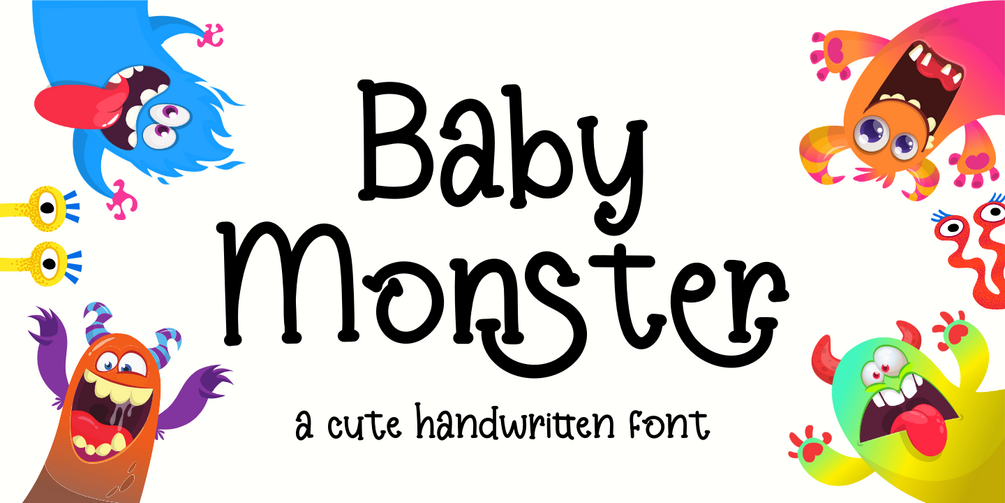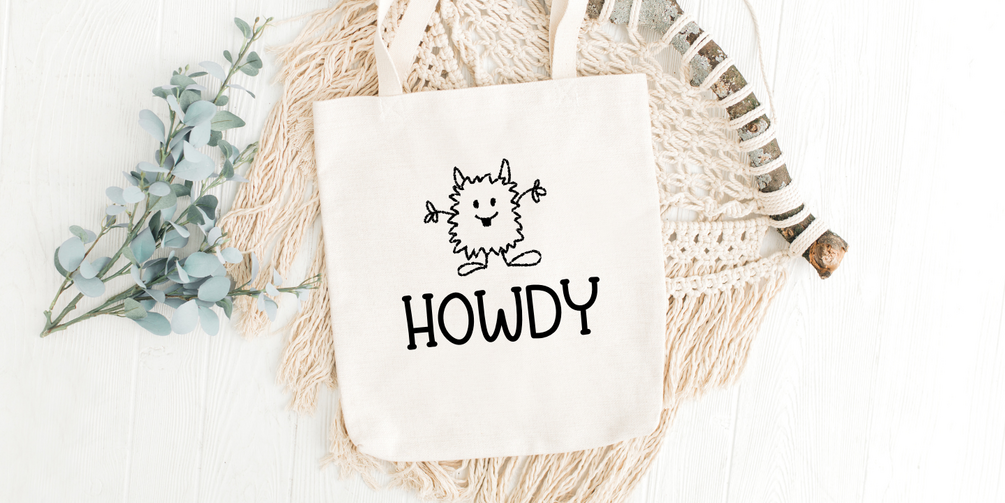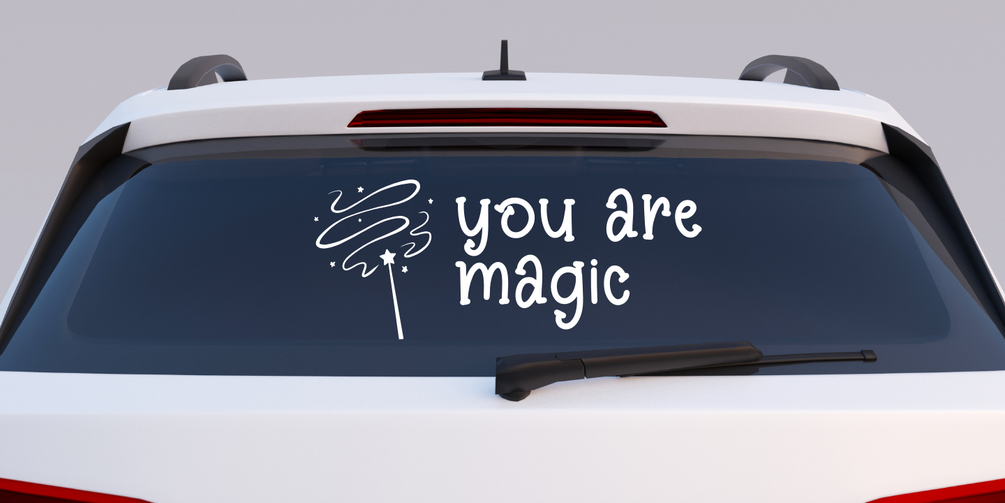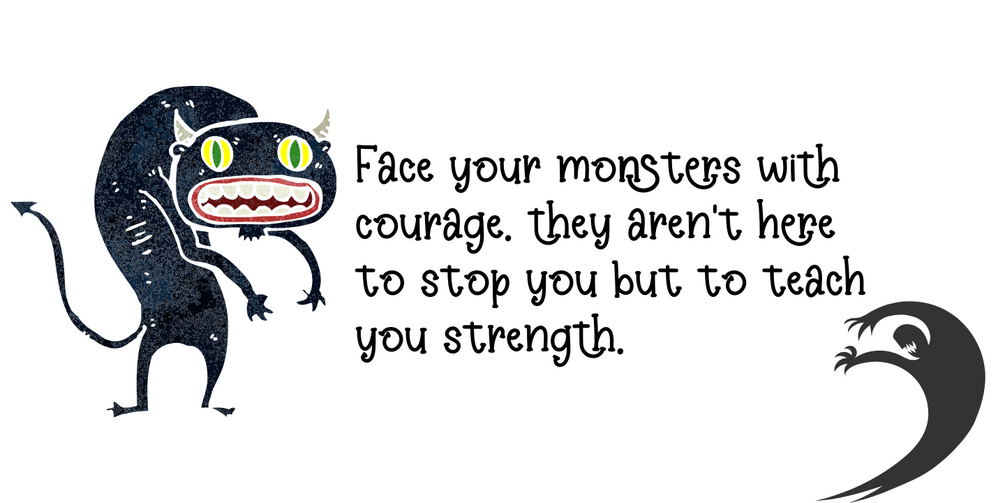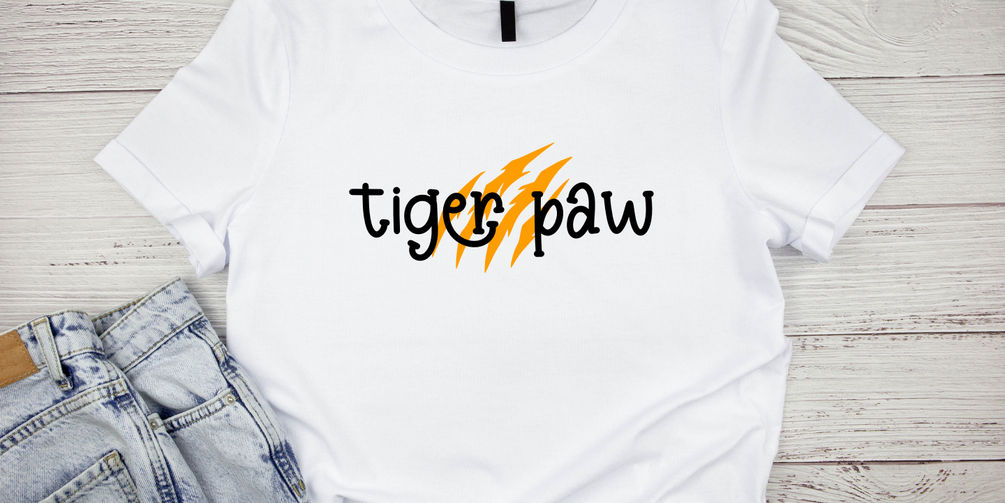
Baby Monster
Baby Monster is a cool and stylish handwritten font with a unique and modern aesthetic. Its contemporary charm is perfect for adding a personal touch to your creative projects. Designed with flair, Baby Monster brings elegance and character, making it ideal for a wide range of designs.
Perfect for logos, book or movie titles, fashion brands, magazines, clothing, lettering, quotes, and much more, Baby Monster is a versatile choice for any project that demands a touch of luxury and creativity.